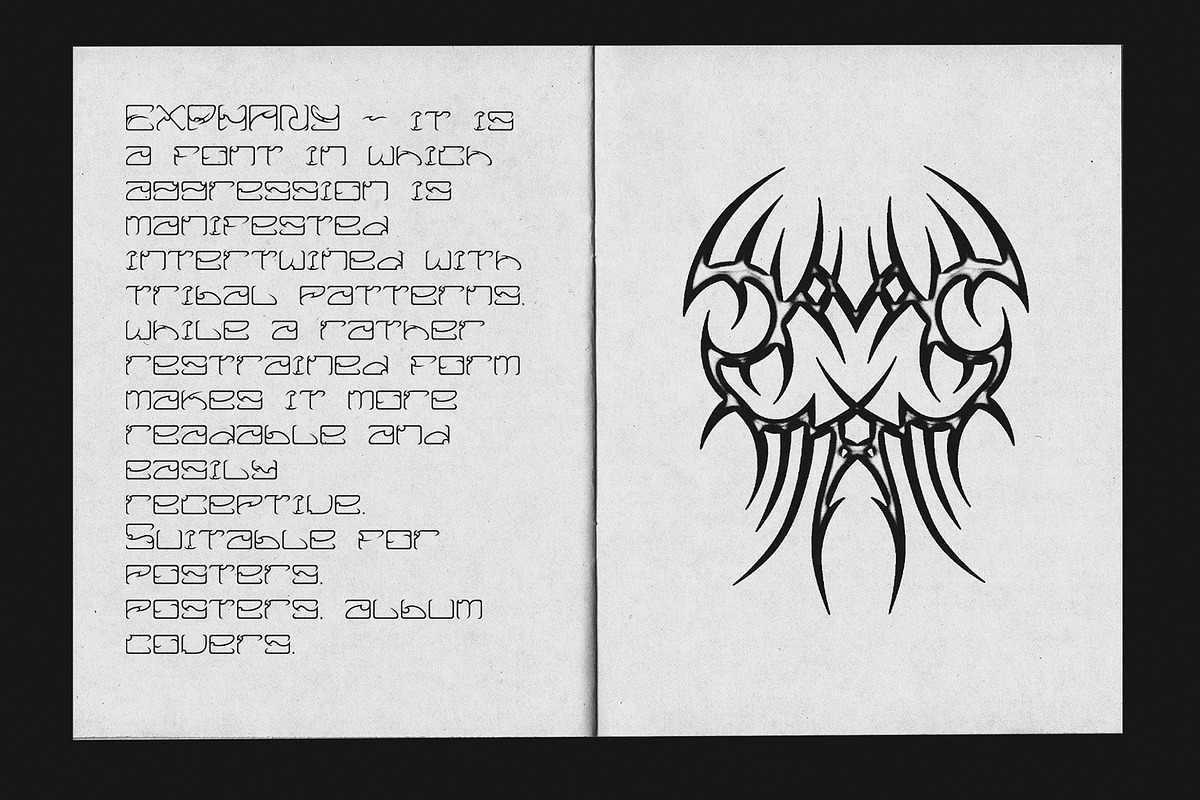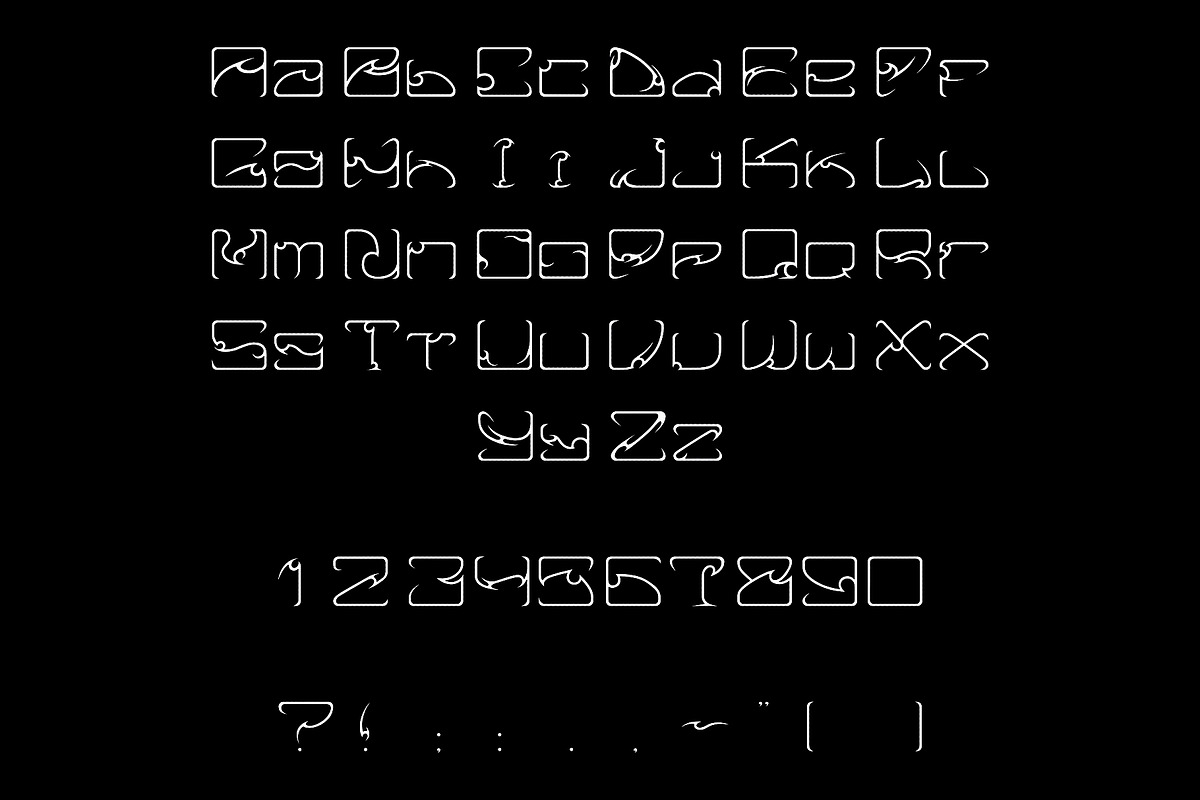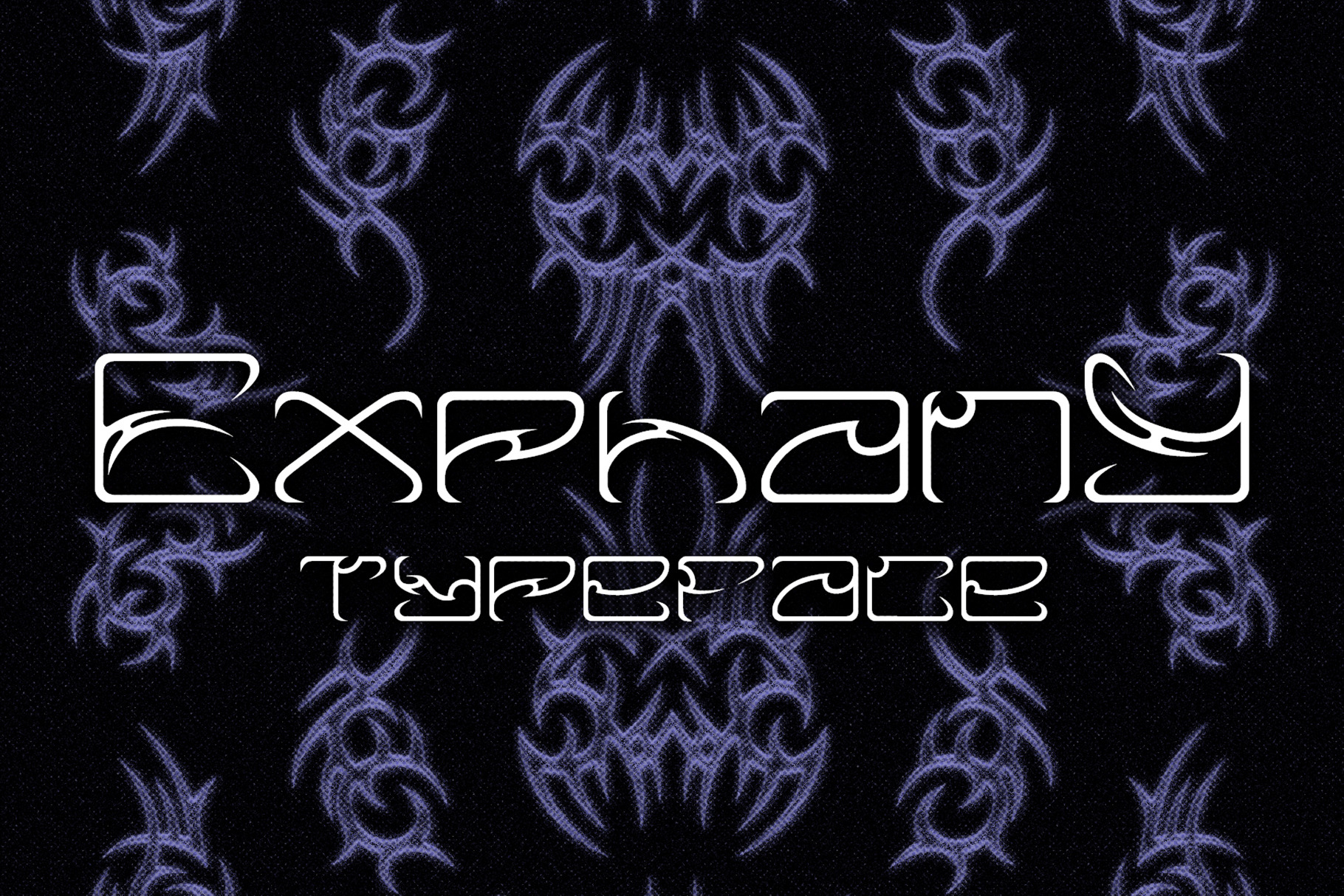
EXPHANY Font
EXPHANY is a font in which aggression is manifested intertwined with tribal patterns, while a rather restrained form makes it more readable and easily receptive. Suitable for posters, album covers.